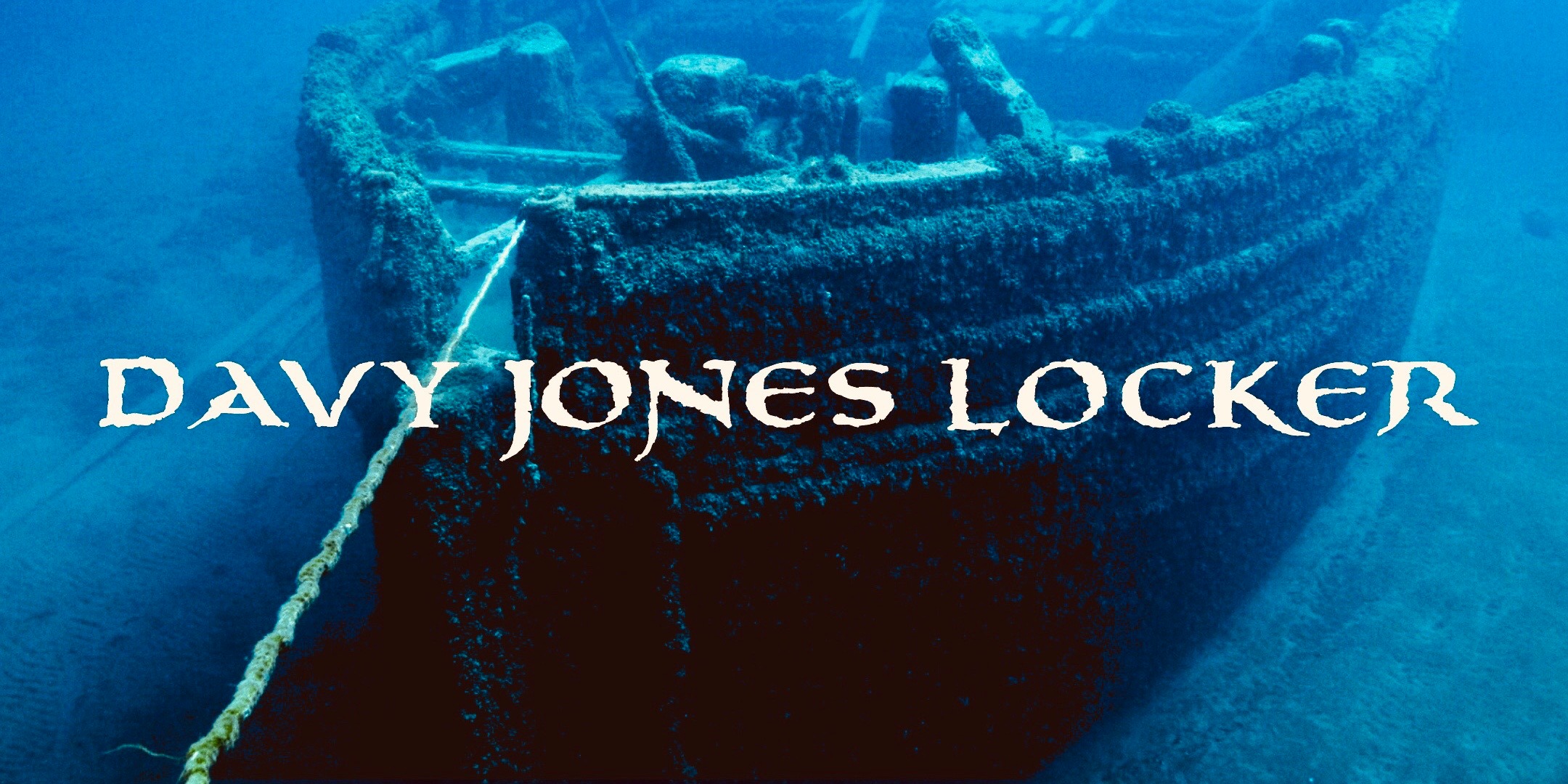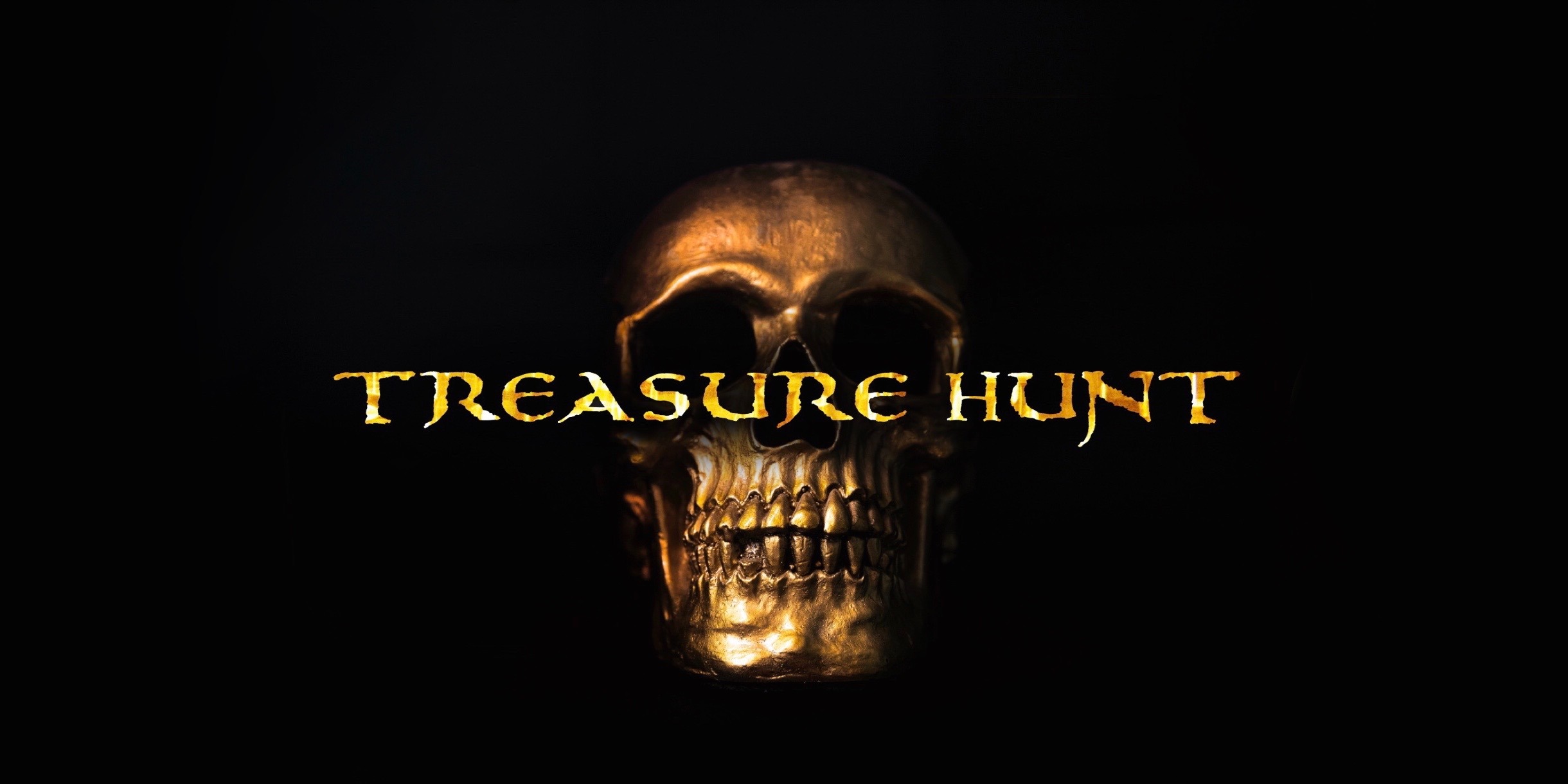
Treasurehunt Display Font
It’s a groovy retro font, designed to mimic ink on parchment. Inspired by pirates. This font is also suitable to be applied especially in logo, and the other various formal forms such as invitations, labels, logos, magazines, books, packaging, fashion, make up, stationery, novels, labels or any type of advertising purpose.